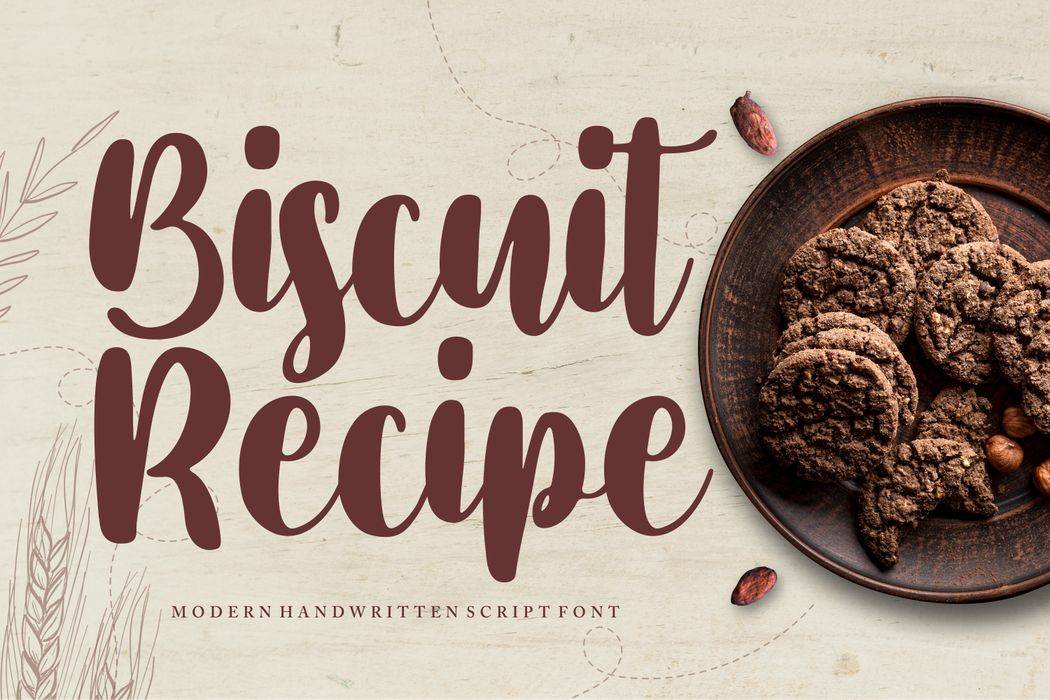
Biscuit Recipe is a bold, playful script font with smooth, rounded strokes and a friendly hand-lettered feel. Its lively curves and balanced weight make it perfect for creative projects that need a warm, inviting personality, such as branding, packaging, and social media graphics. This font works well for headlines or display text where a charming and approachable style is desired.
Biscuit Recipe Font
About Biscuit Recipe Font
| Font family | Biscuit Recipe Font |
| Release date | 2021-10-03 |
| Designer | Forberas Club |